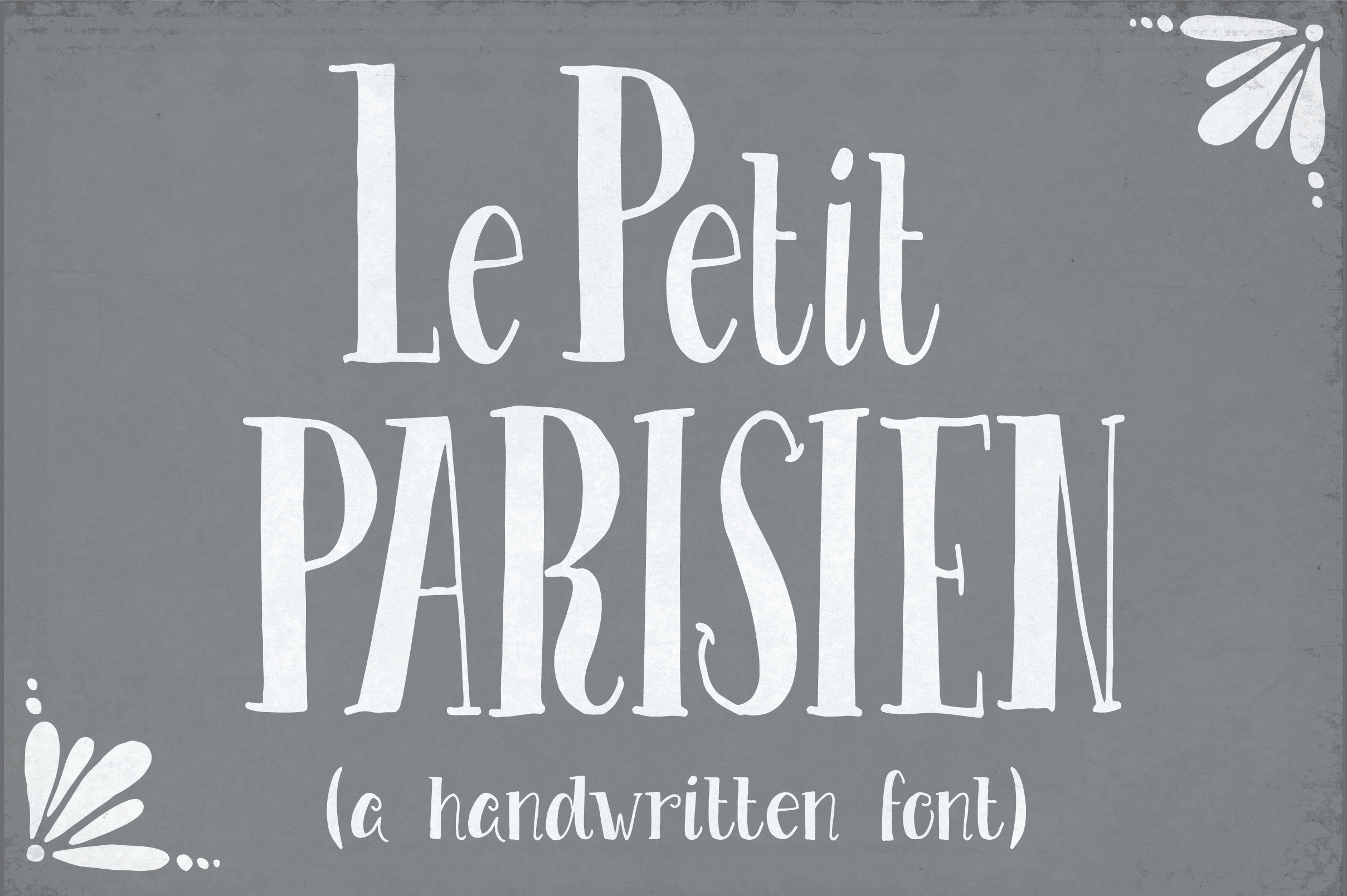
Le Petit Parisien Font
Le Petit Parisien is a cute, hand written font that speaks to the charm of the world's historic cities. The old and the new come together to form this sweet & nostalgic but ever so modern typeface. Try it on book titles, menus, branding, blog posts, anything that needs a charming, elegant, hand made feel. It comes with currency symbols, copyright, trademark, fractions and all the accents you need to write in most European languages.